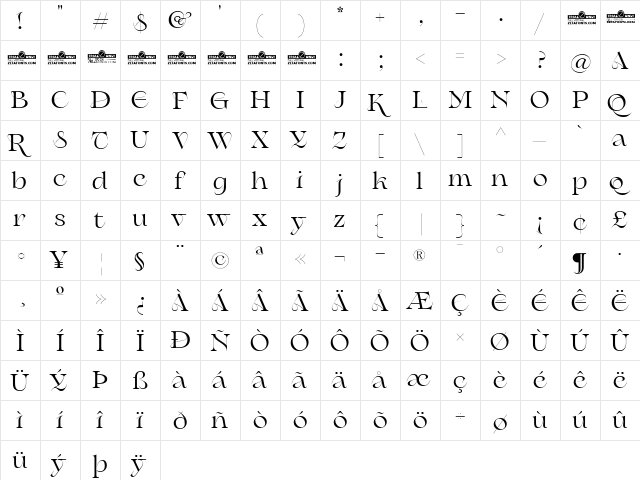
Erotique Alternate Trial Bold
| Foundry | Zetafonts |
| Designer | Cosimo Lorenzo Pancini, Mariachiara Fantini, Solenn Bordeaux, Andrea Tartarelli |
Design Context for Erotique Alternate Trial Typeface
Erotique Alternate Trial is a composed and adaptable typeface that performs quietly and consistently across a wide range of design contexts. Its bold stroke weight gives it real presence on the page.